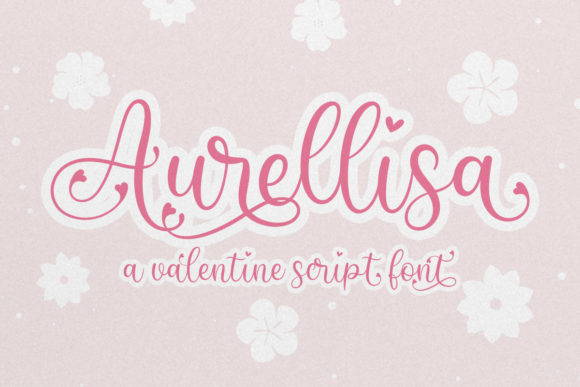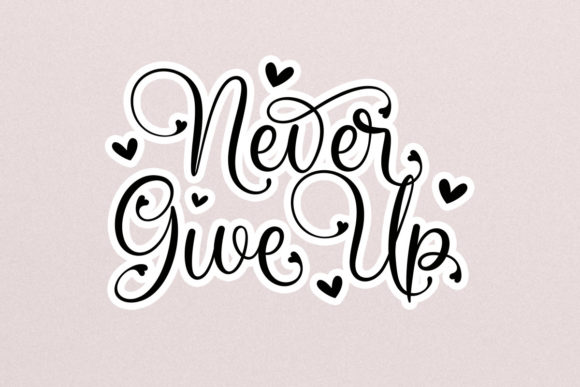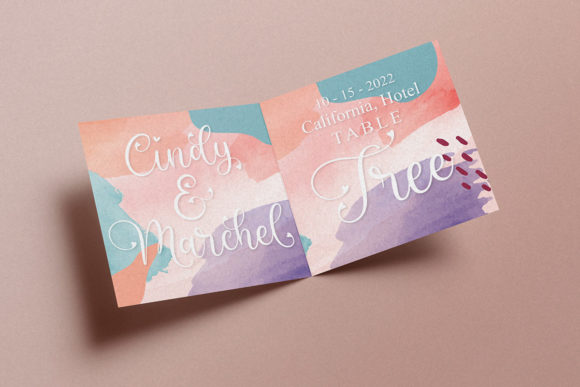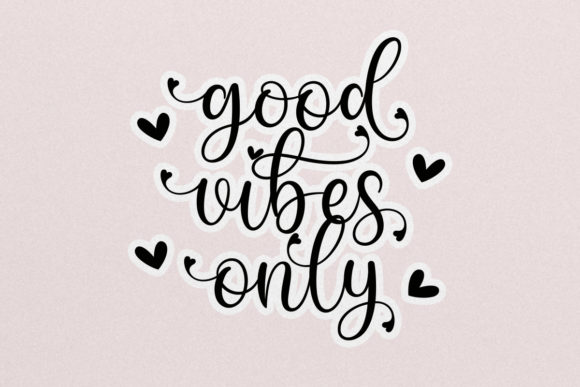
About Aurellisa Font
Aurellisa feels equally charming and elegant. It looks stunning on wedding invitations, thank you cards, quotes, greeting cards, logos, business cards and every other design which needs a handwritten touch.